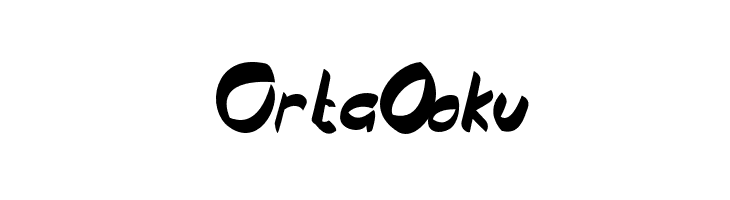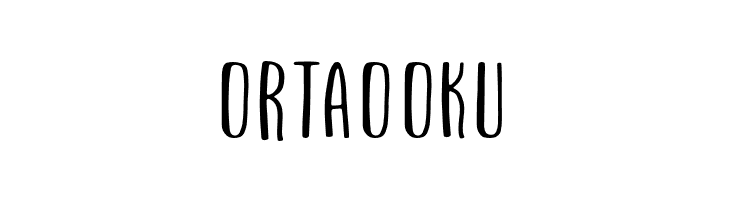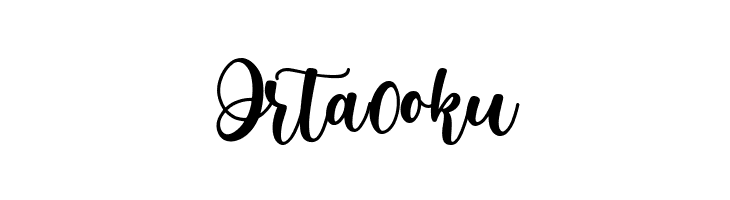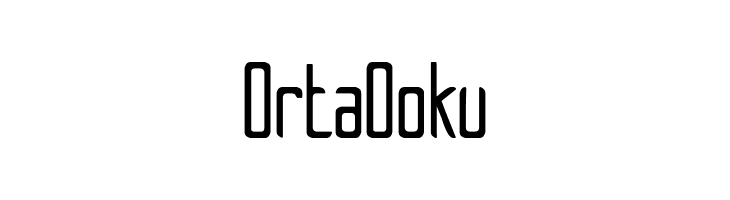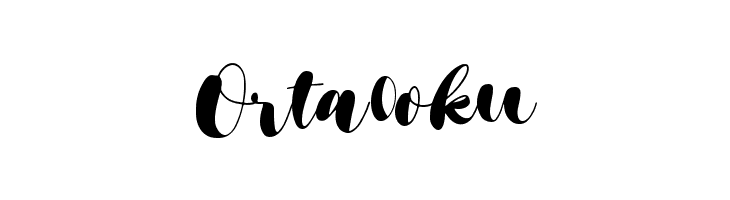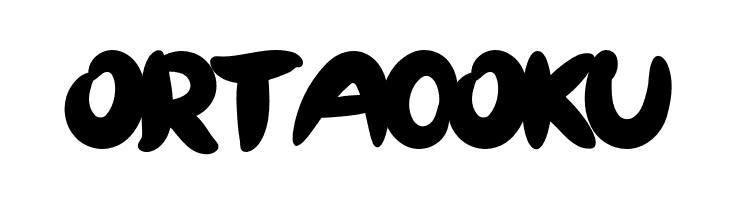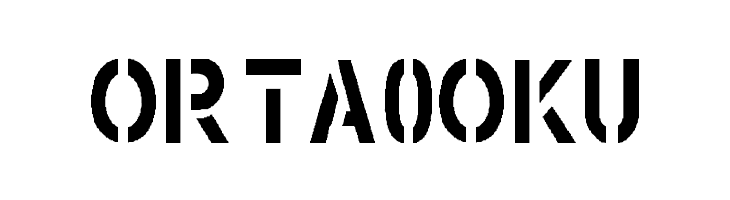
A bold, playful font with thick, rounded strokes and a lively appearance.
A bold, handwritten-style font with dynamic, slanted characters.
A playful and elegant script font with flowing, cursive letters and a harmonious balance of strokes.
A modern, geometric font with rounded, elongated characters and uniform stroke width.
A playful, bold font with a hand-drawn, whimsical style.
A bold, dynamic handwritten font with a modern flair.
A bold, flowing script font with elegant curves and a handwritten style.
A playful, handwritten font with tall, narrow letters and a casual vibe.
A modern, geometric font with a bold and clean appearance.